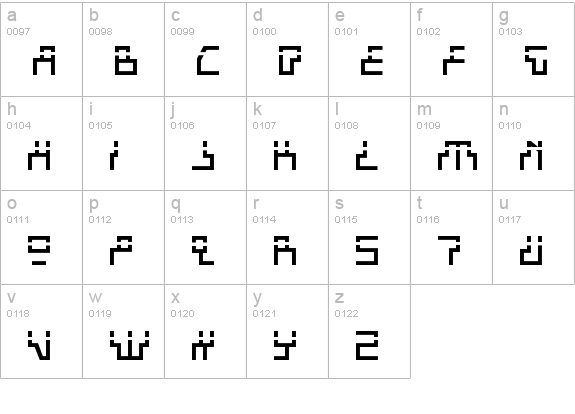
Introducing Beam Rider Laser font, a sleek and futuristic typeface that is perfect for adding a touch of sci-fi flair to your designs. Inspired by the sleek lines and dynamic energy of laser technology, this font features sharp, angular letterforms that exude a sense of speed and innovation. Beam Rider Laser font is a versatile choice for a wide range of design projects, from branding to digital art to posters and more. Its unique aesthetic is sure to make your text stand out and grab attention. The best part? Beam Rider Laser font is completely free to download at FontsMarket.com. So go ahead and add a touch of futuristic style to your next project with this cutting-edge typeface.